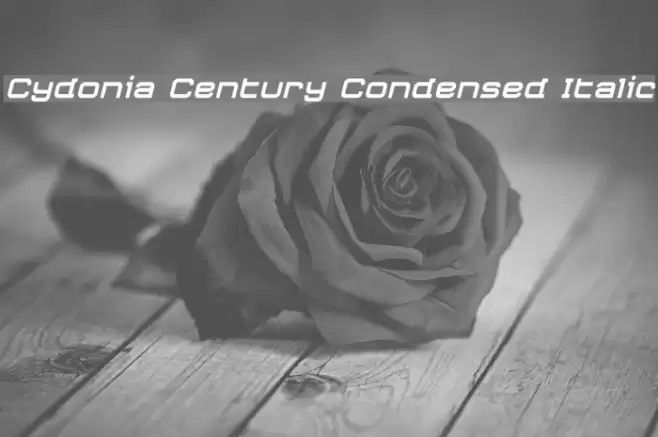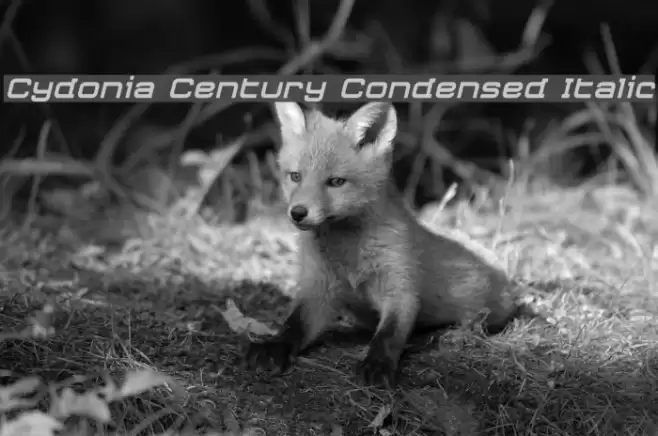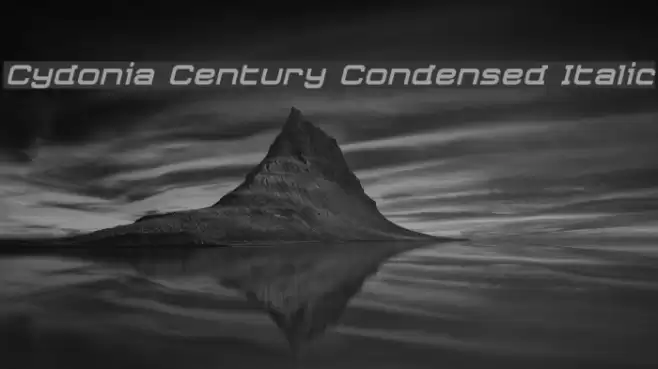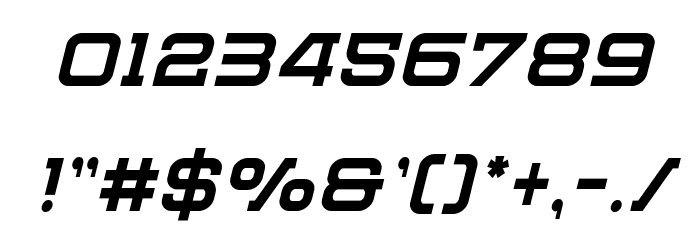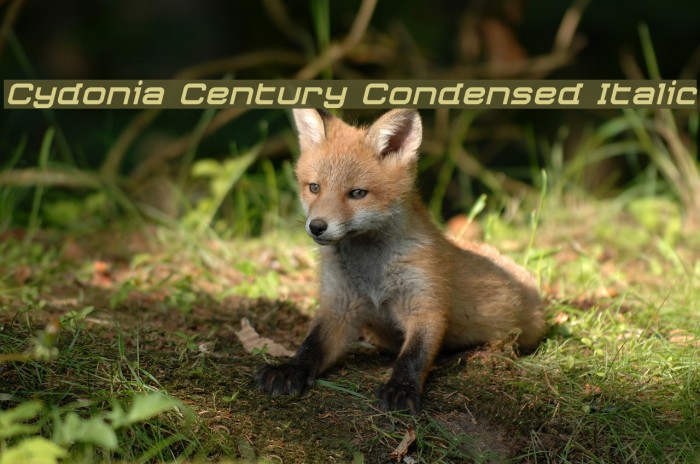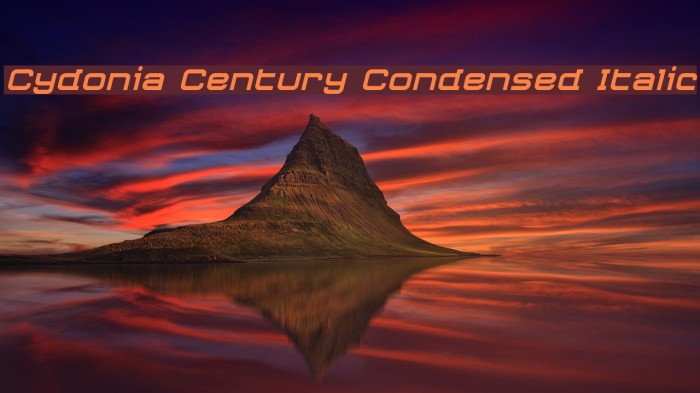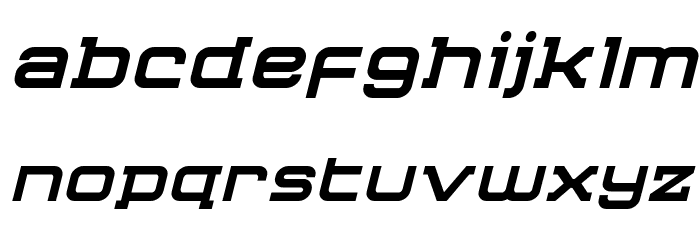
Cydonia Century Condensed Italic Font
Cydonia Century Condensed Italic Description
This font features a sleek, modern design with a condensed structure and italicized form. The characters exhibit a geometric style with sharp angles and clean lines, creating a sense of motion and dynamism. The uppercase and lowercase letters maintain a consistent slant, enhancing the italic effect. The numerals and special characters are designed to match the overall aesthetic, providing a cohesive look across all glyphs. This font's condensed width allows for efficient use of space, making it ideal for settings where space is limited but style is essential.
A modern, condensed italic font with geometric styling and sharp angles from Uncategorized fonts.
- Proposed Projects: Ideal for branding, editorial design, and modern advertising campaigns.